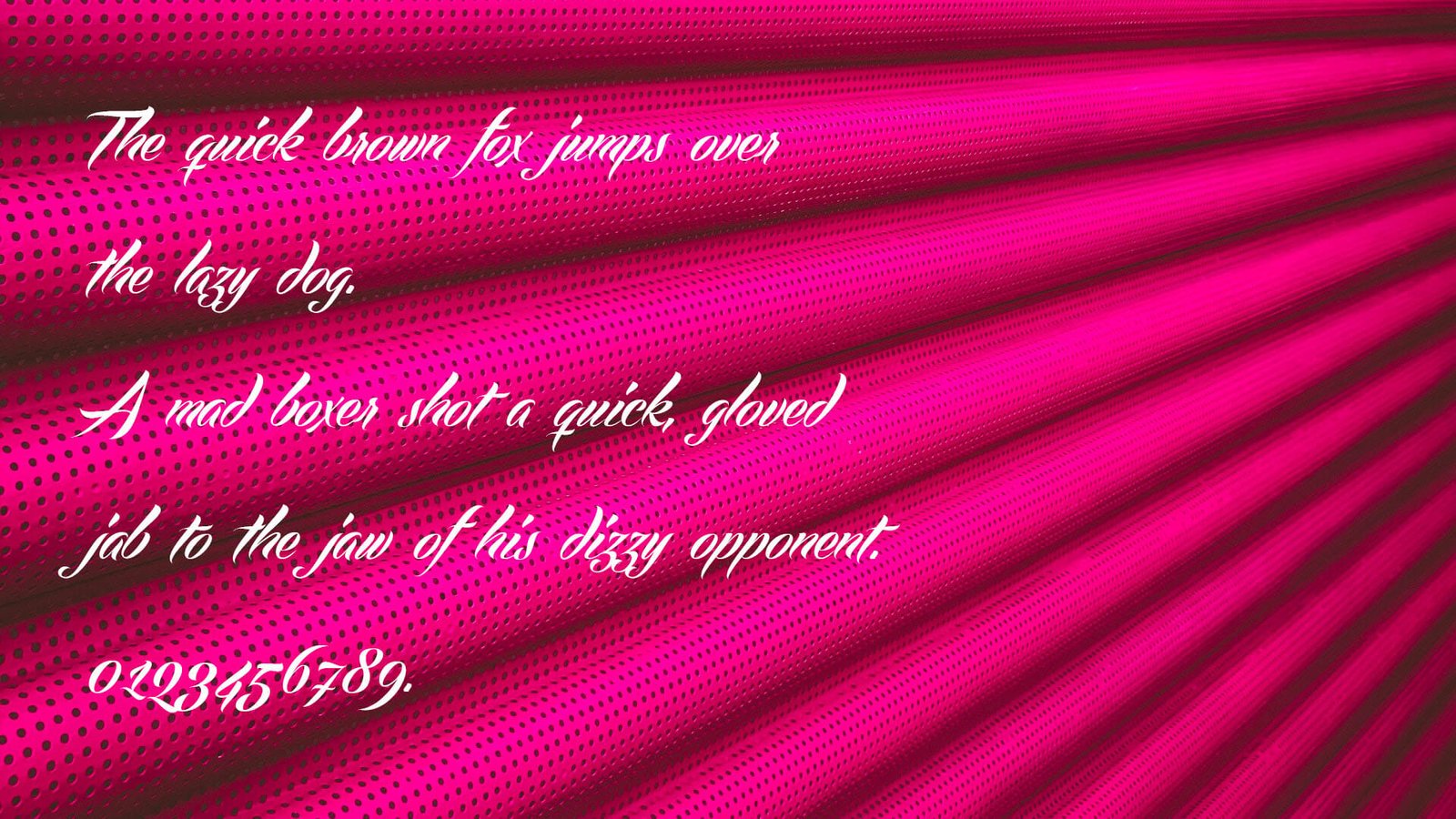
Echinos Park Script font was designed by Mans Greback. This font was published in the year 2012. It belongs to the script typeface.
This font is the typeface of the handwritten script. Cursive calligraphic typeface font that works under the category of the loopy typeface.